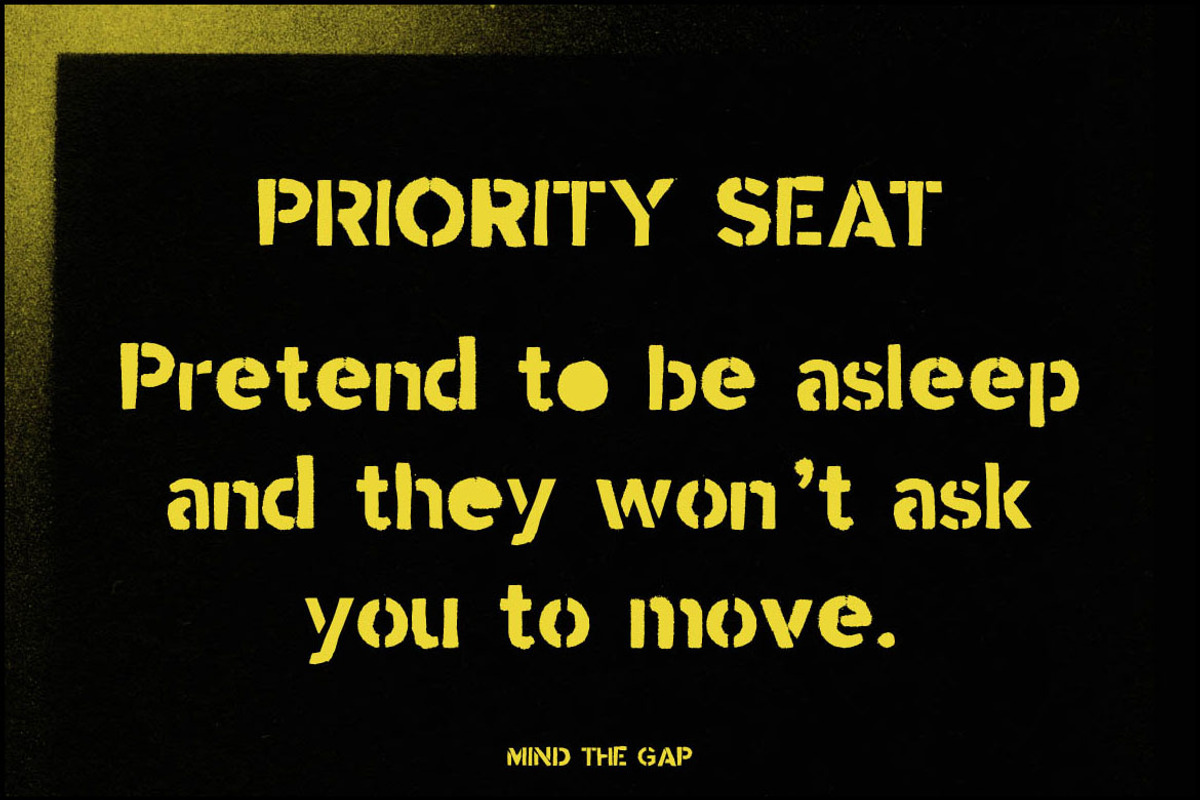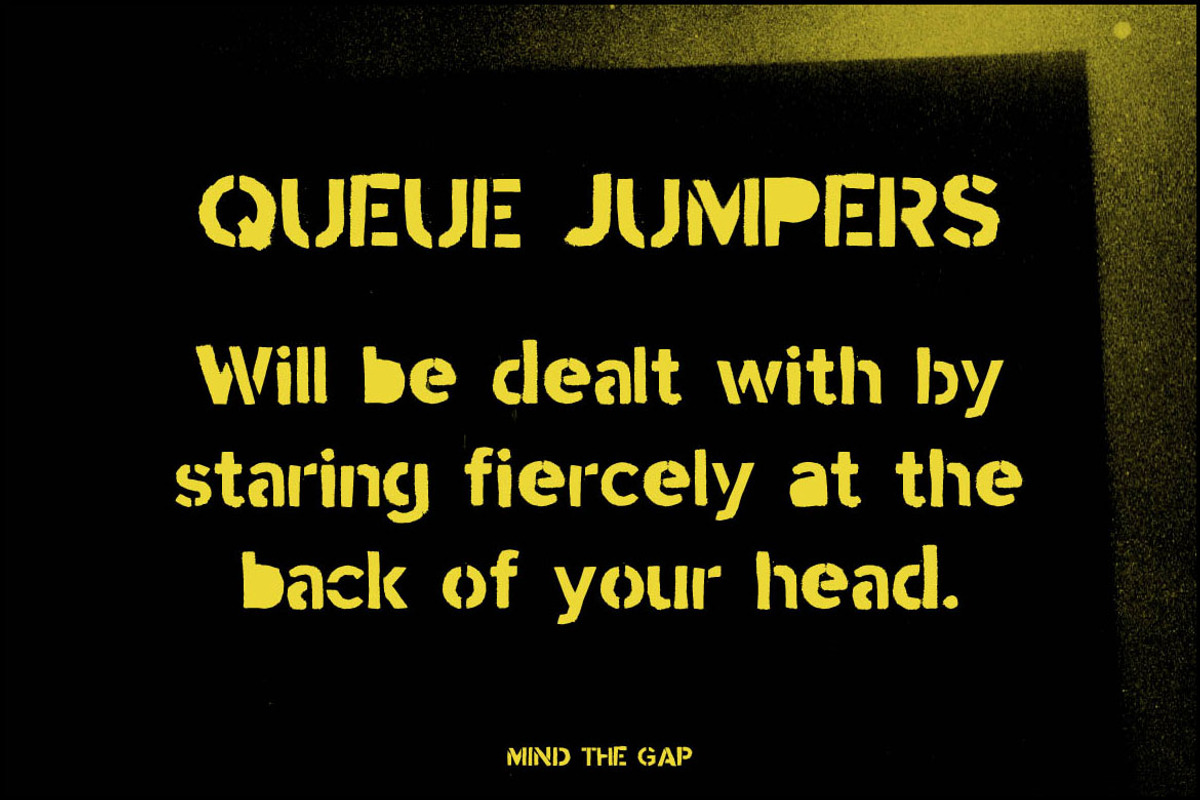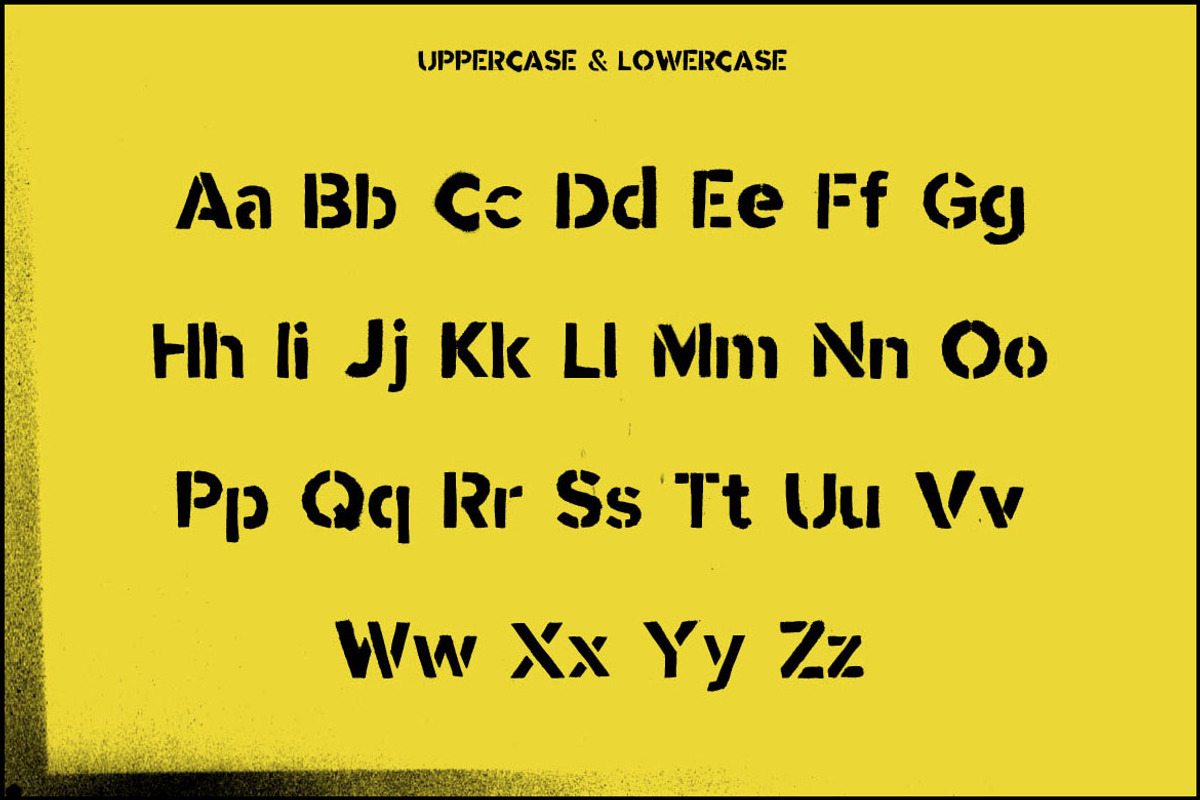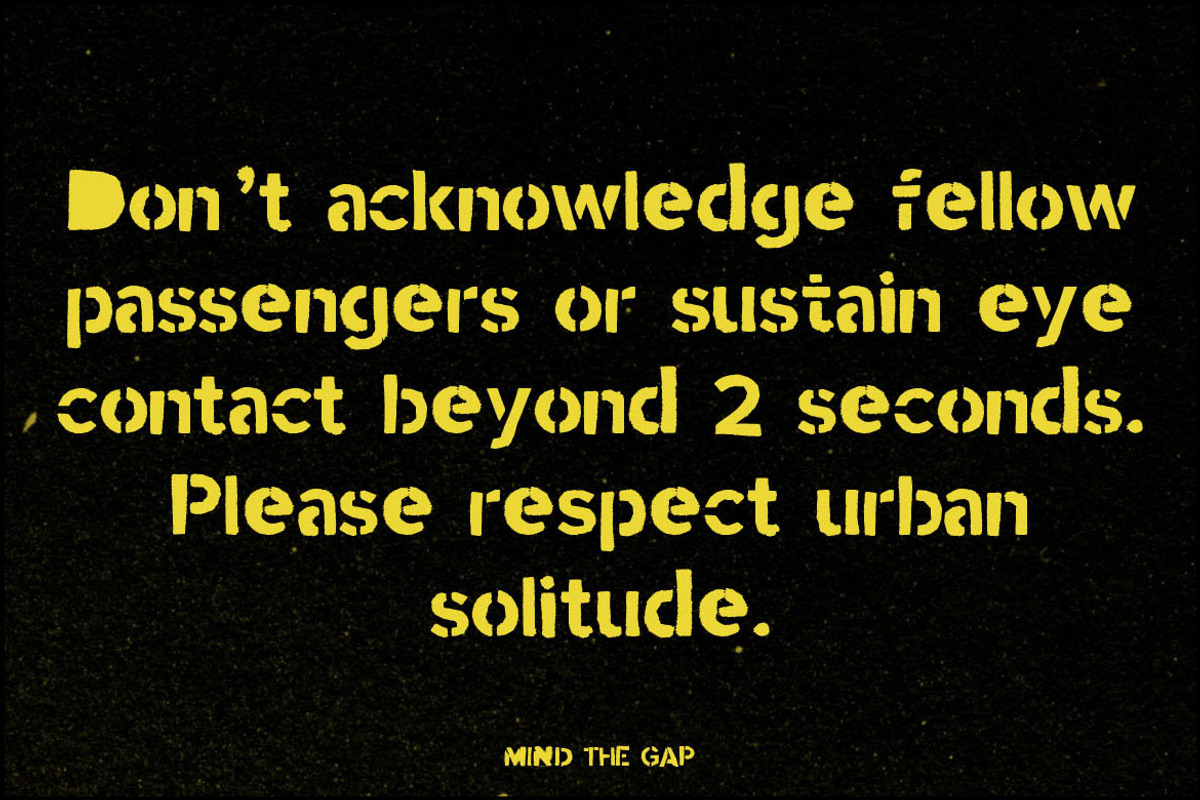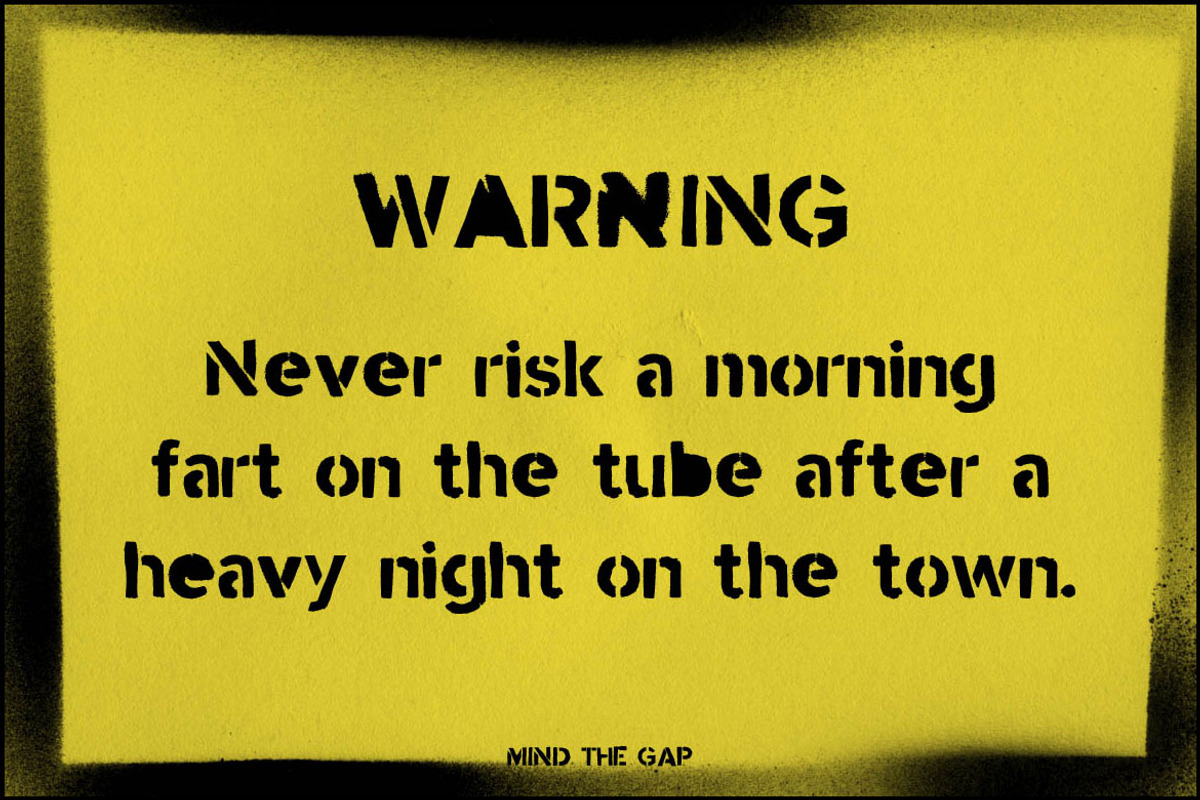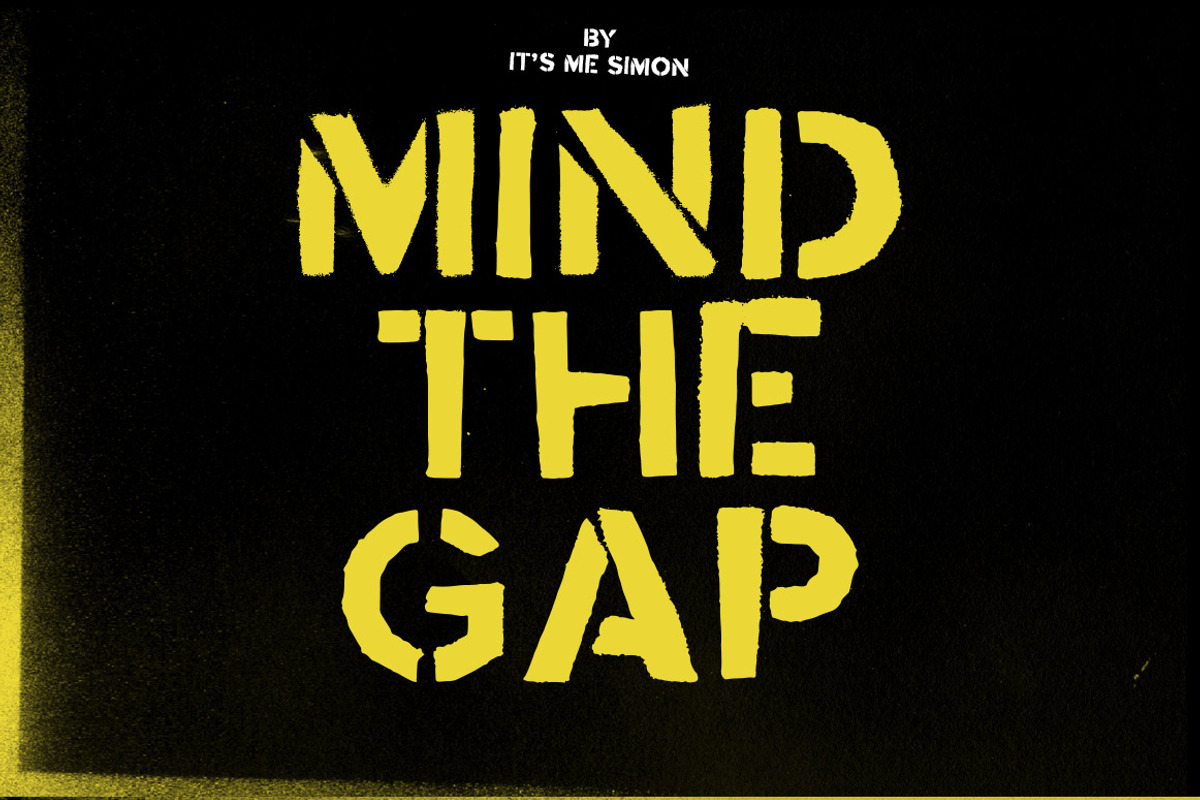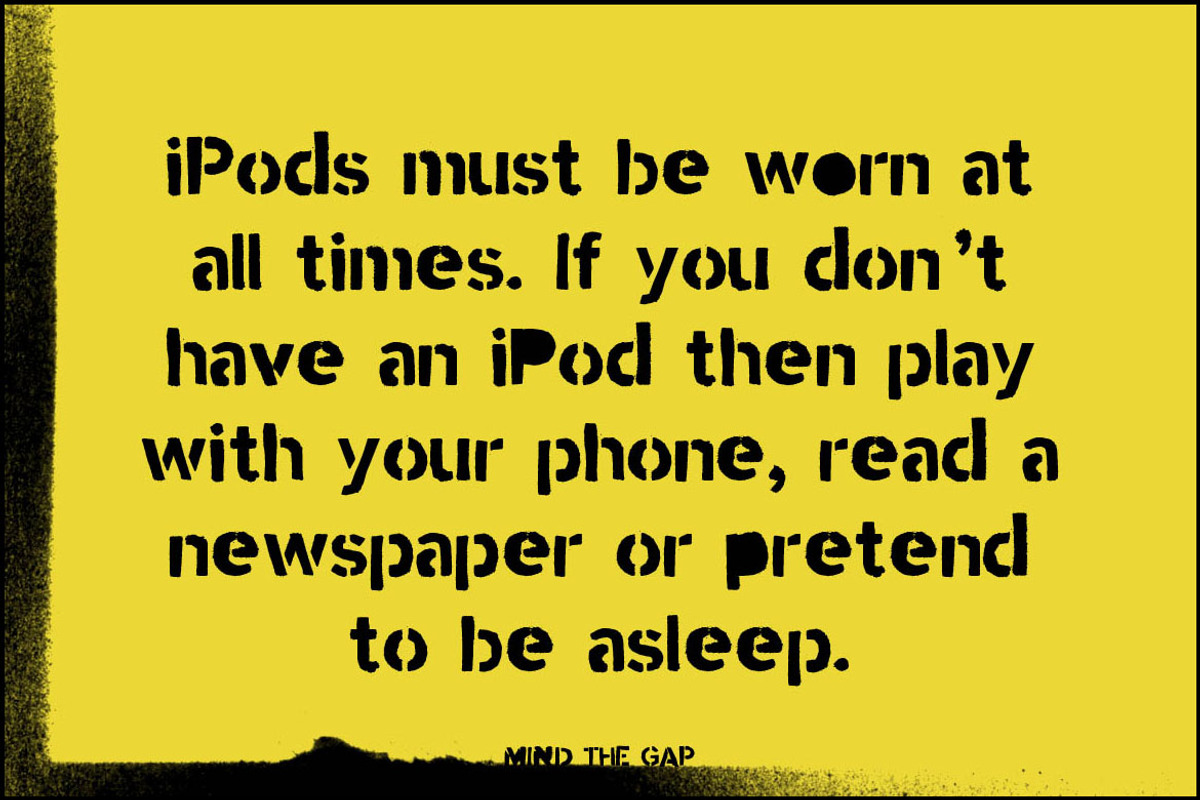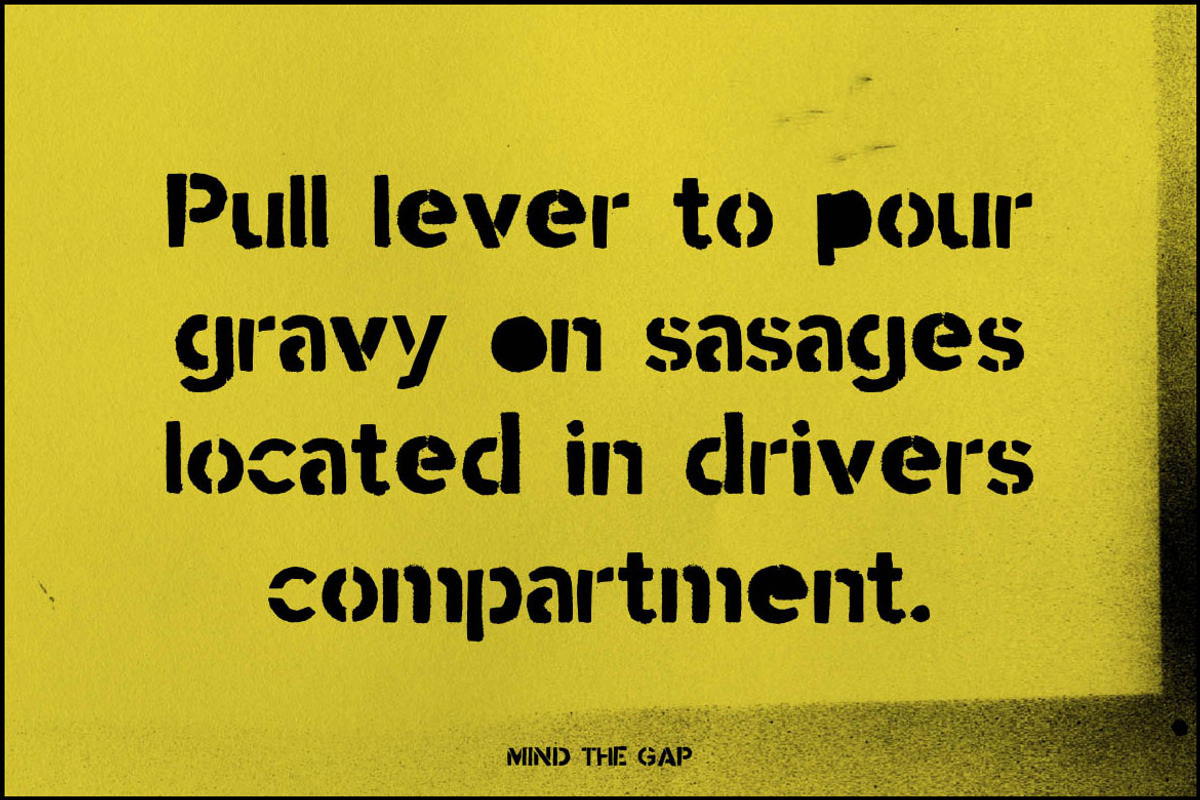
Stencil font By Simon Stratford I design things for a living check out my wor
Stencil font By Simon Stratford I design things for a living check out my wor by Itsmesimon is a font selected for branding, posters, packaging, typography.
- Display font It includes one stylistic alternative for uppercase and lowercase A-Z.
Why Stencil font By Simon Stratford I design things for a living check out my wor is worth a look
Stencil font By Simon Stratford I design things for a living check out my wor by Itsmesimon fits naturally into Branding, posters, packaging, typography.